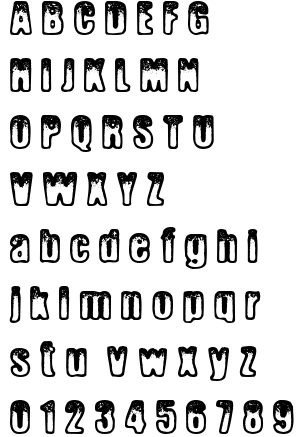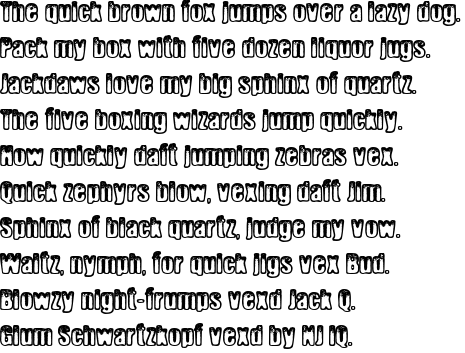
AngerPrerelease is most popular/used font in the State of USA. Project name of this font is AngerPrerelease. Personaly feel free to use ©1997 Clearlight Fonts and Design. Inspired by the font on Rage's Evil Empire. This font is not free. Kickin' mad flava in ya eyes. uh..yea. whatever// but when you use this font commercially please contsct- ©1997 Clearlight Fonts and Design. Inspired by the font on Rage's Evil Empire. This font is not free. Kickin' mad flava in ya eyes. uh..yea. whatever//.
✓ ©1997 Clearlight Fonts and Design. Inspired by the font on Rage's Evil Empire. This font is not free. Kickin' mad flava in ya eyes. uh..yea. whatever//